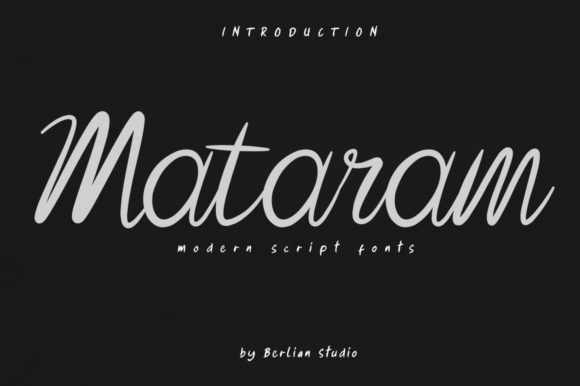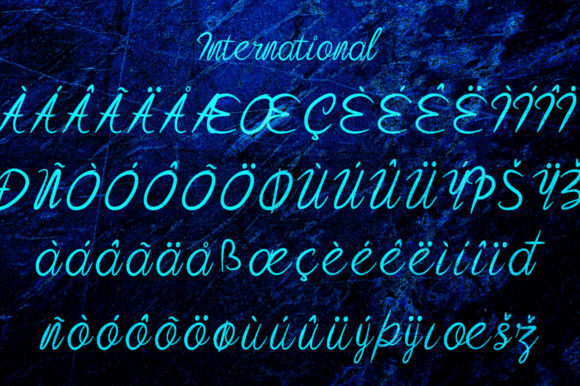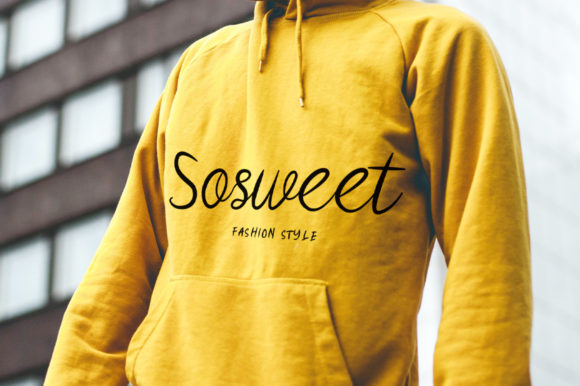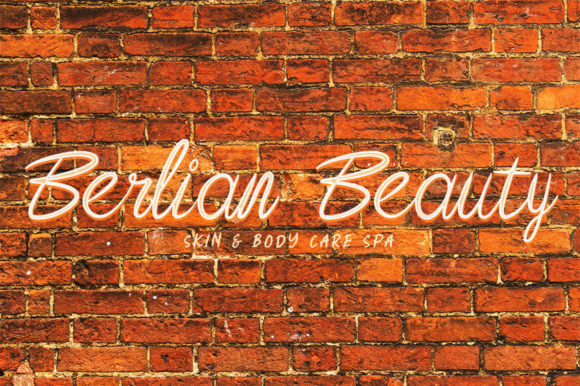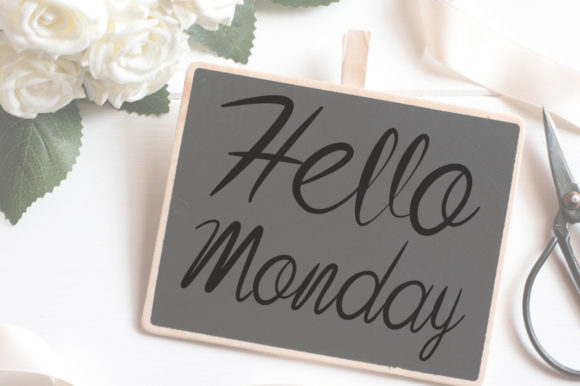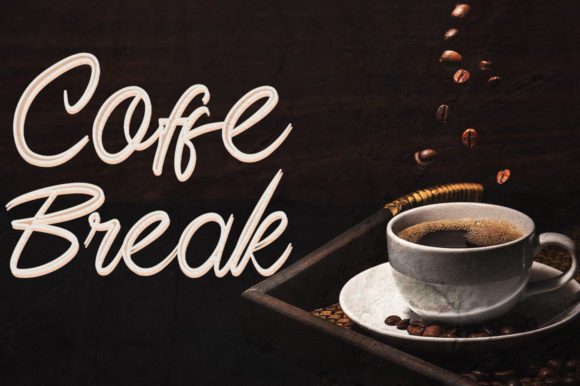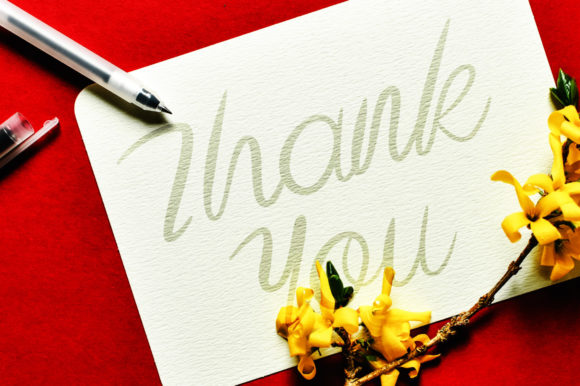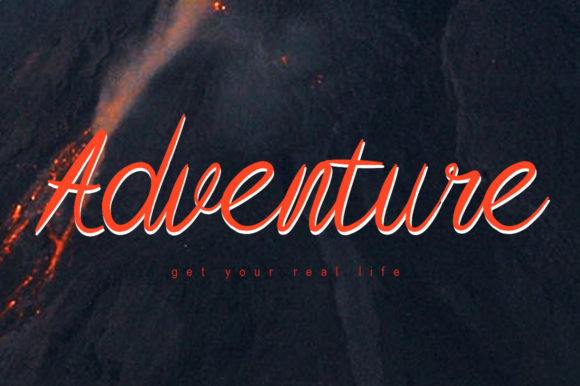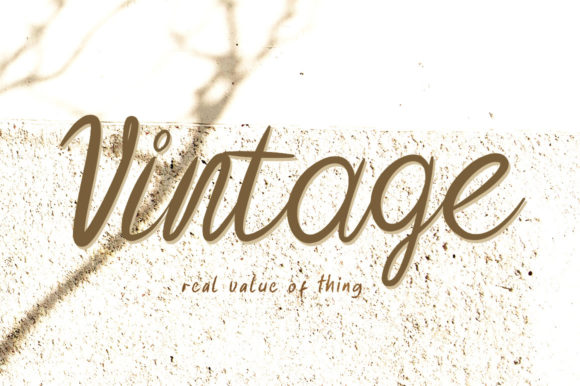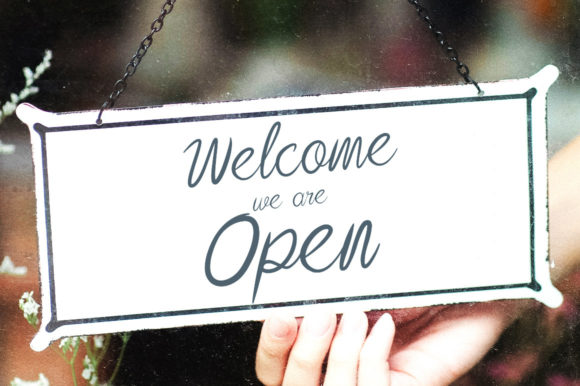
Mataram Font
About Mataram Font
Mataram is a playful and casual script font. It is perfectly made to be applied especially in logos and other various formal forms such as invitations, labels, magazines, books, greeting/wedding cards, packaging, fashion, make-up, stationery, novels, labels, or anything of your type of advertising objective.